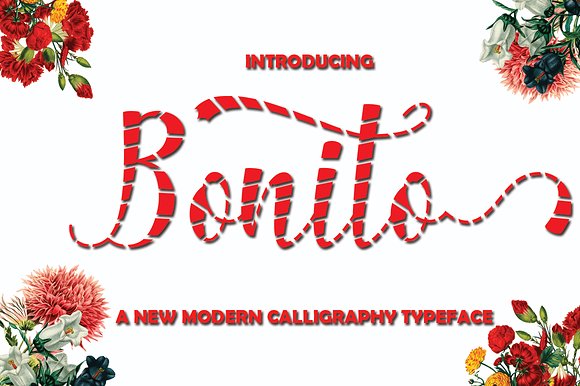
Introducing Bonito Font: A Playful Script Font for Your Creative Projects
Bonito is a playful script font that has captured the hearts of designers and crafters alike. Its unique blend of elegance and whimsy makes it an ideal choice for a wide range of creative projects, from branding and advertising to crafting and DIY tutorials. In this article, we’ll take a closer look at the Bonito font, its features, and how you can use it to add a touch of personality to your work.
What is Bonito Font?
Bonito is a script font that is characterized by its flowing, connected letters and playful flair. It is designed to evoke a sense of fun and spontaneity, making it perfect for projects that require a lighthearted and creative touch. The font is highly legible, even at small sizes, making it versatile for use in a variety of applications.
Key Features of Bonito Font
- Playful and whimsical design: Bonito font features a unique and playful design that is sure to add a touch of personality to your projects.
- Highly legible: The font is designed to be highly legible, even at small sizes, making it perfect for use in a variety of applications.
- Connective script: Bonito font features a connective script design, where letters flow smoothly into each other, creating a beautiful and fluid look.
- Multilingual support: The font supports multiple languages, making it a great choice for designers and crafters who work with international clients or create content for a global audience.
Uses of Bonito Font
Bonito font is a versatile font that can be used in a wide range of creative projects, including:
- Branding and advertising: Use Bonito font to create eye-catching logos, advertisements, and marketing materials that stand out from the crowd.
- Crafting and DIY tutorials: Add a touch of personality to your crafting and DIY tutorials with Bonito font, making them more engaging and fun to follow.
- Social media graphics: Use Bonito font to create social media graphics that are visually appealing and engaging, helping you to stand out in a crowded online space.
- Stationery and invitations: Add a touch of elegance and whimsy to your stationery and invitations with Bonito font, making them perfect for special occasions.
Tips for Using Bonito Font
Here are some tips for using Bonito font in your creative projects:
- Use it sparingly: While Bonito font is playful and fun, it can be overwhelming if used excessively. Use it sparingly to add a touch of personality to your projects.
- Pair it with a sans-serif font: Pair Bonito font with a sans-serif font to create a beautiful contrast and add visual interest to your projects.
- Experiment with colors: Bonito font looks great in a variety of colors, so don’t be afraid to experiment and find the perfect color scheme for your project.
| Font Name | Bonito Font |
| Author | Jhoen Studio |
Bonito font is a playful script font that is sure to add a touch of personality to your creative projects. Its unique blend of elegance and whimsy makes it an ideal choice for designers and crafters who want to create visually appealing and engaging content. With its highly legible design, connective script, and multilingual support, Bonito font is a versatile font that can be used in a wide range of applications. So why not give Bonito font a try and see how it can elevate your creative projects?